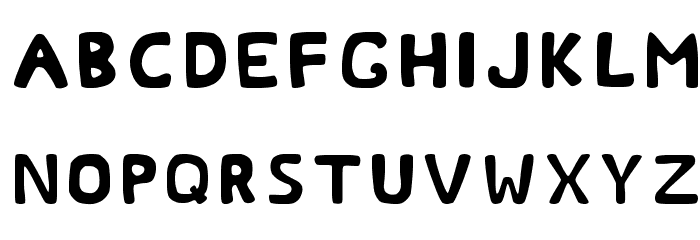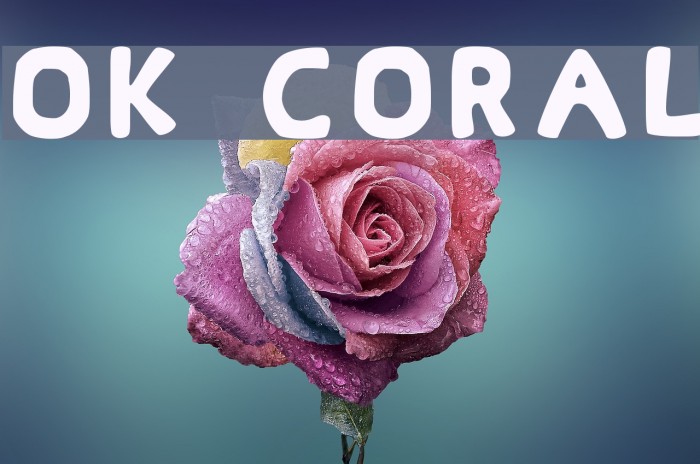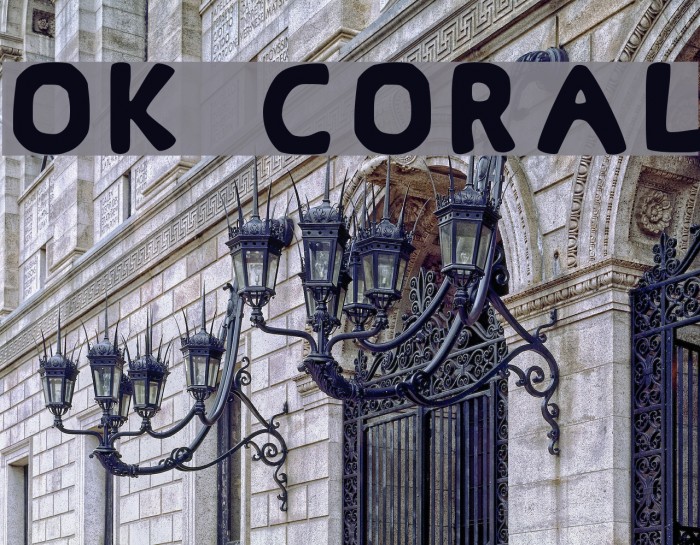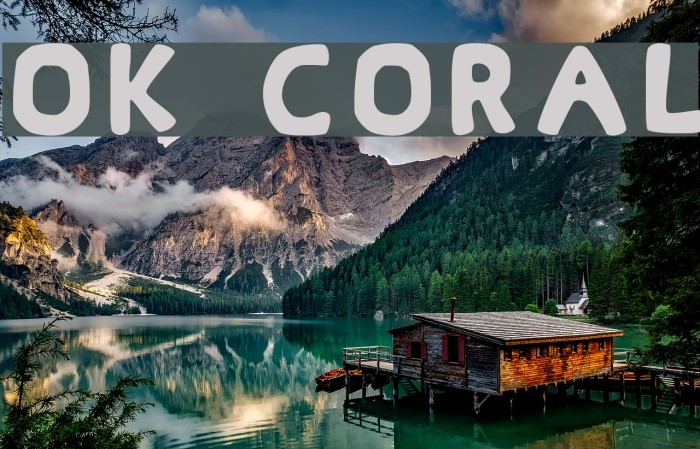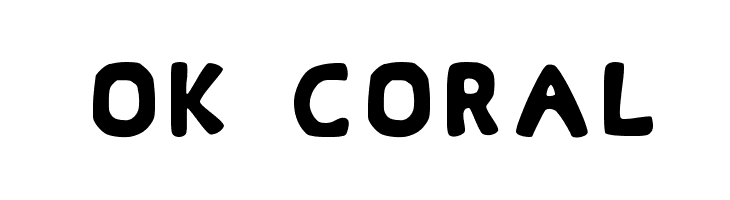
Ok Coral Font
This font features a playful and bold style with rounded edges and a slightly irregular shape, giving it a hand-drawn appearance. The letters are uniformly thick, creating a strong presence on the page. The uppercase and lowercase characters maintain a consistent style, enhancing readability while adding a whimsical touch. The numbers and special characters follow the same design principles, ensuring a cohesive look across all text elements. This font's unique character makes it suitable for projects that require a fun and informal tone.
A playful, bold font with rounded edges and a hand-drawn feel.
- Proposed Projects: Ideal for children's books, playful branding, casual invitations, and creative posters.
- Overall Style: Playful